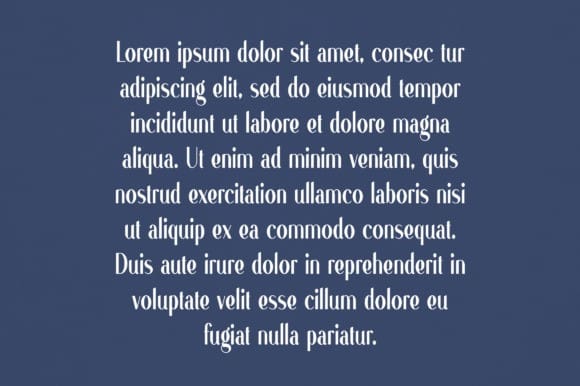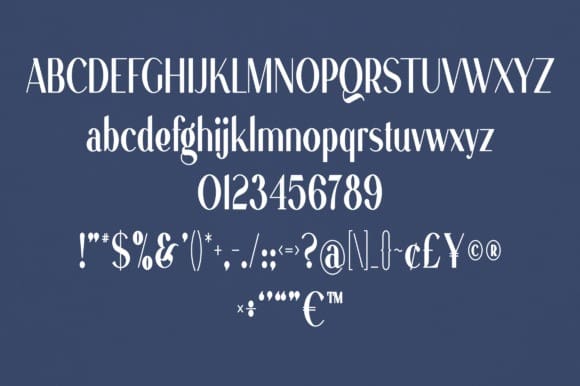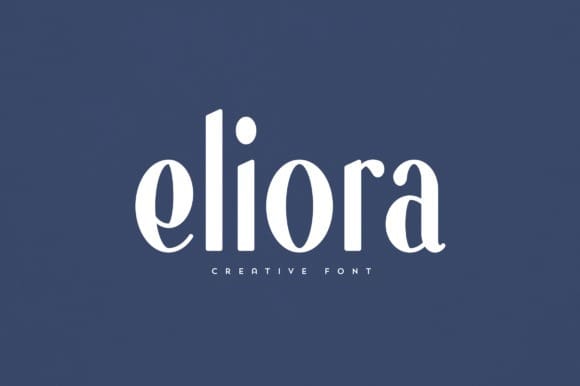
Eliora Font
Eliora Font is an elegant and versatile font that will make your typography truly unique! It will enchant every logo, branding, headline, or plain text!